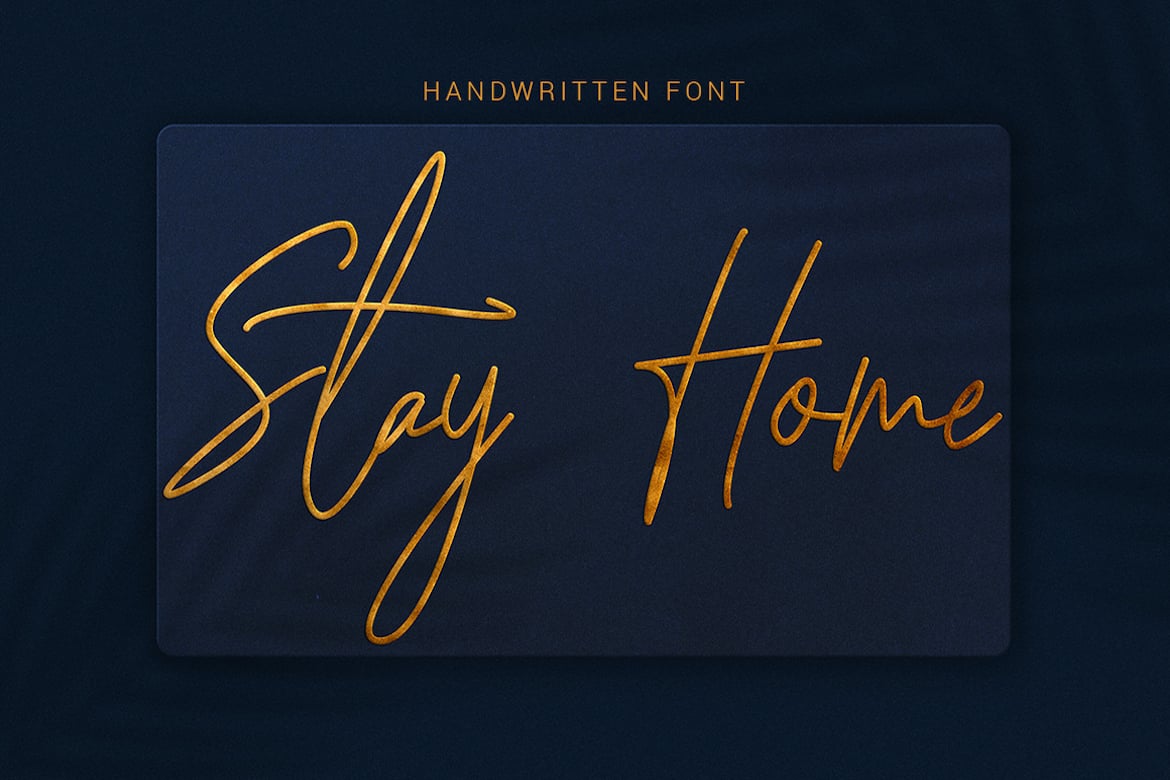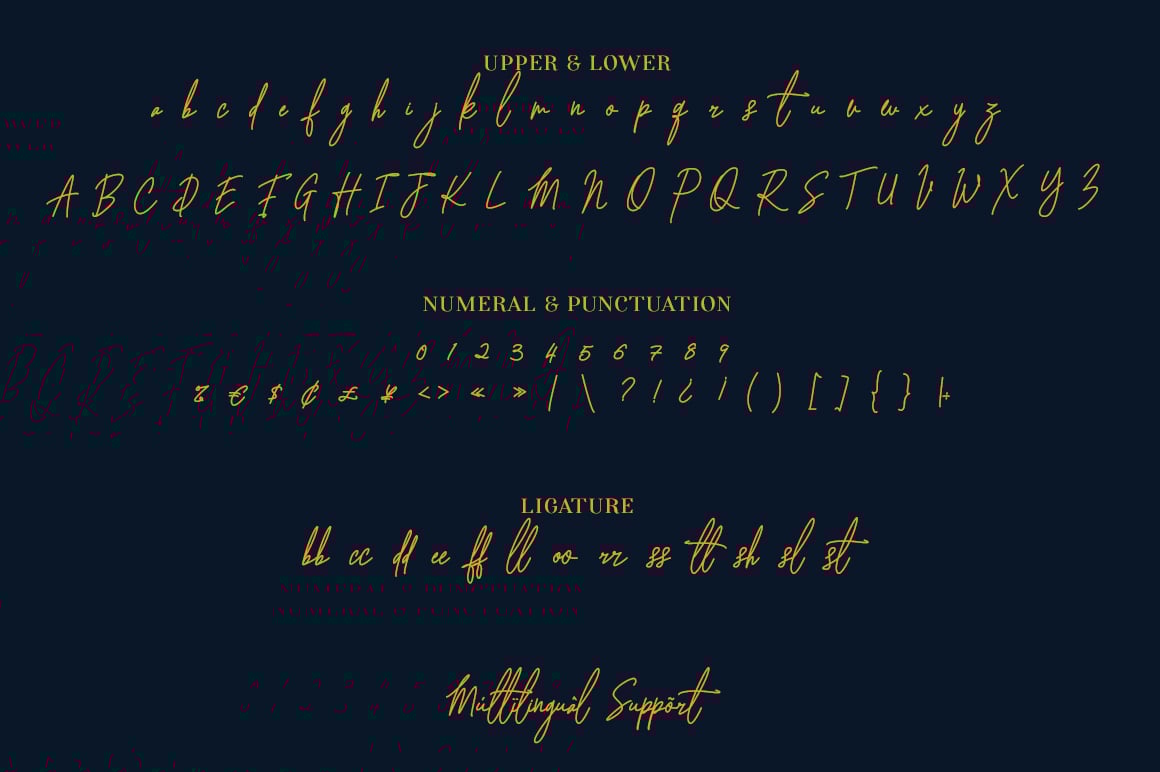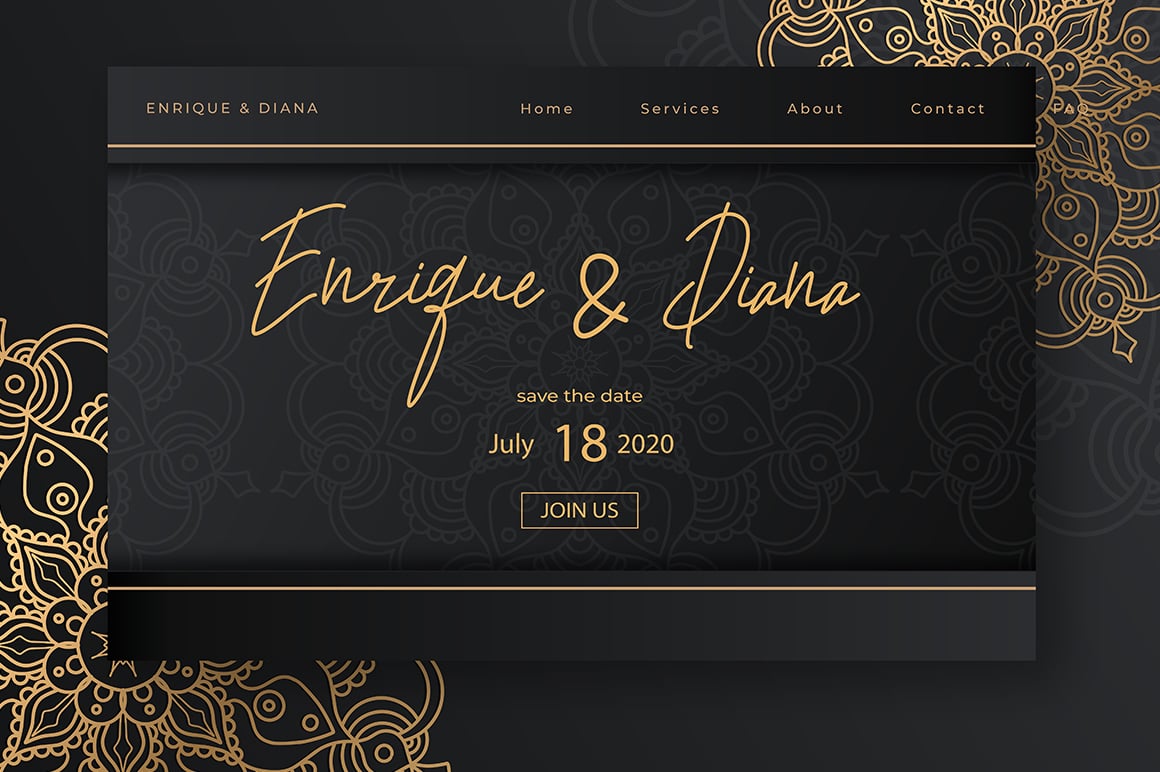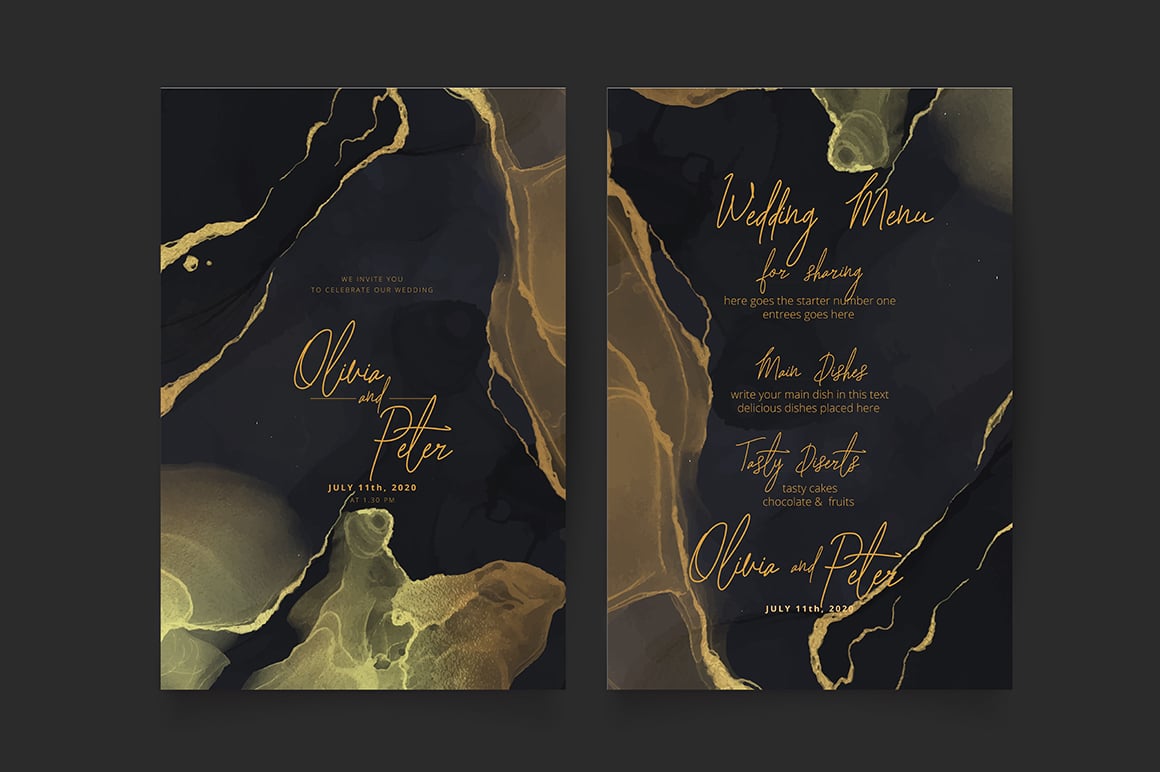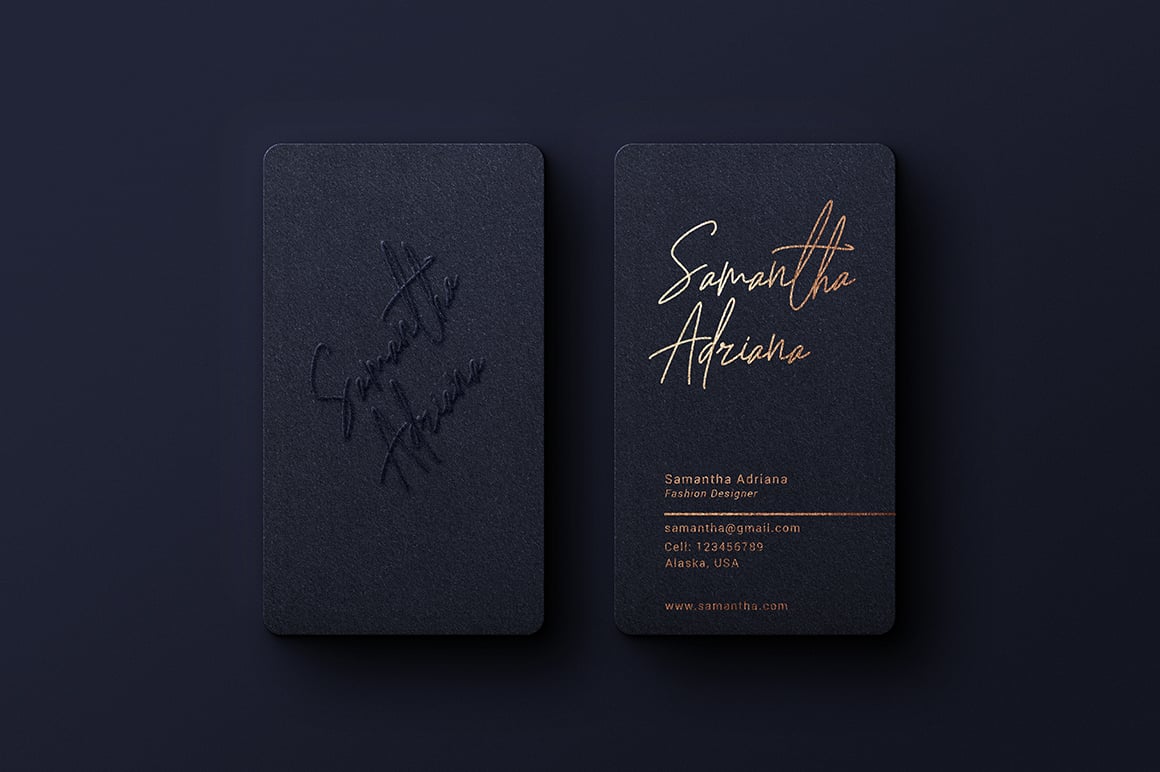
Stay Home – Modern Hand Lettering Font
Stay Home font is a modern hand lettering script. It’s allowing you to create beautiful hand-made typography
in an instant.
Stay Home script is to use for any kind of design such as branding projects,
logo, brochures, business card, wedding designs, social media posts, advertisements, product packaging,
product designs, label, photography, watermark, invitation, brand company, stationery and any
projects that need handwriting taste.